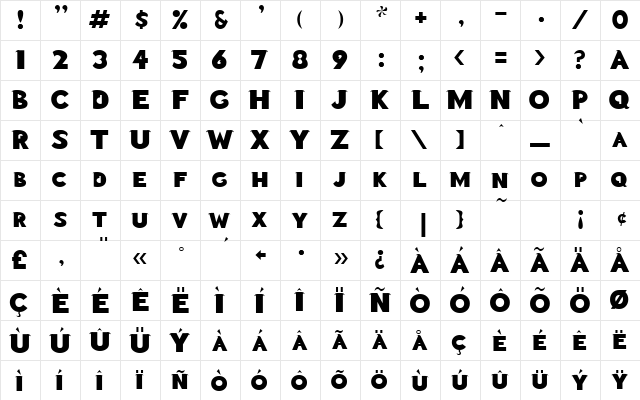
Swanville Regular
Design Context for Swanville Typeface
Swanville offers clean, dependable letterforms without strong stylistic allegiance, making it a practical choice for designers who need flexibility.